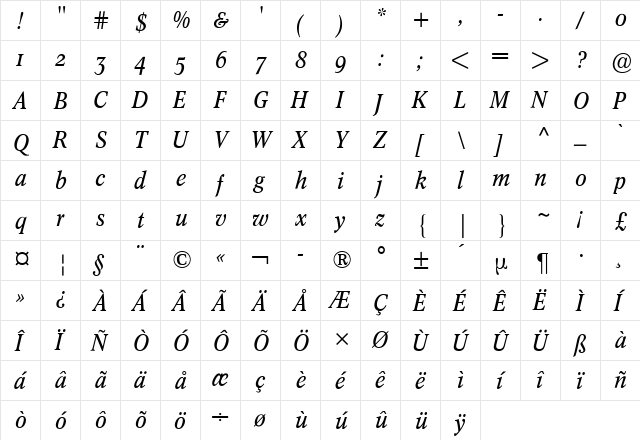
Concorde Nova Expert BQ Italic Font Preview
Concorde Nova Expert BQ Italic
Concorde Nova Expert BQ Italic Font Details
Design Context for Concorde Nova Expert BQ Typeface
Concorde Nova Expert BQ is a composed and adaptable typeface that performs quietly and consistently across a wide range of design contexts. The slanted form adds forward momentum and visual energy.
Pro Tip: Use Concorde Nova Expert BQ for emphasis, pull quotes, and subheadings where its slanted energy can add rhythm to the layout.